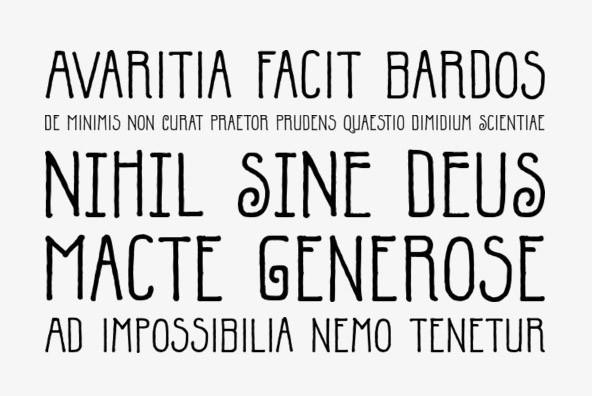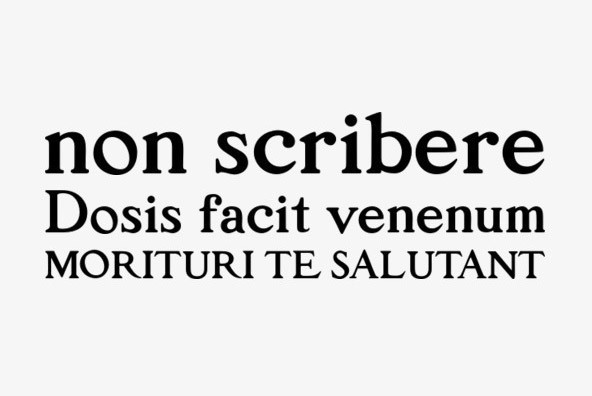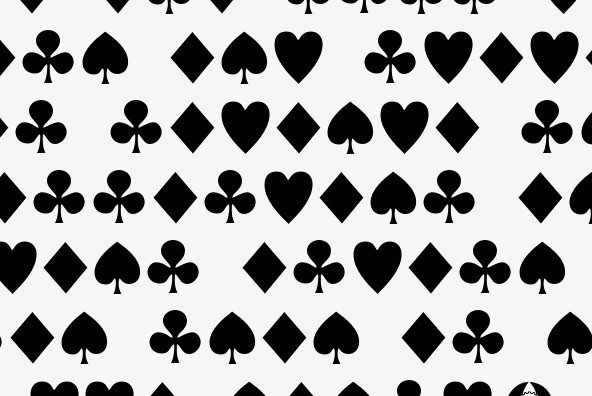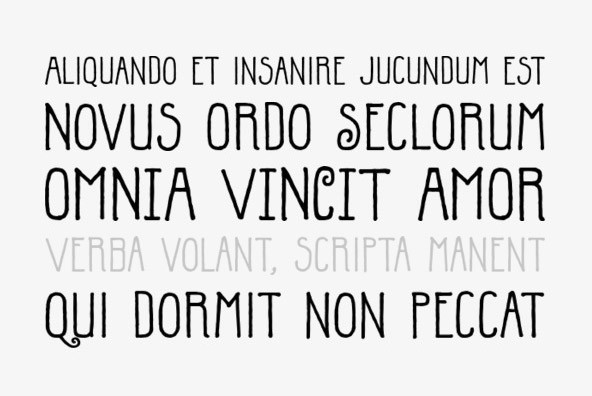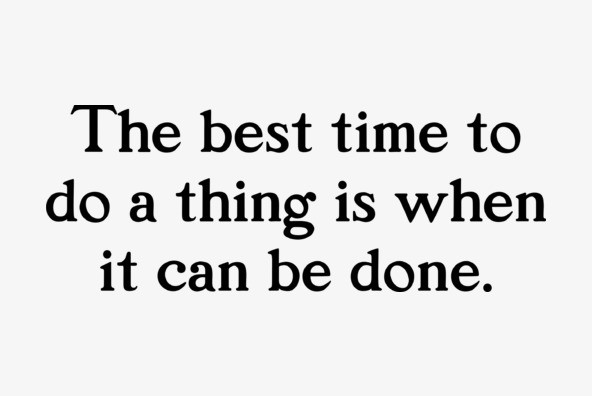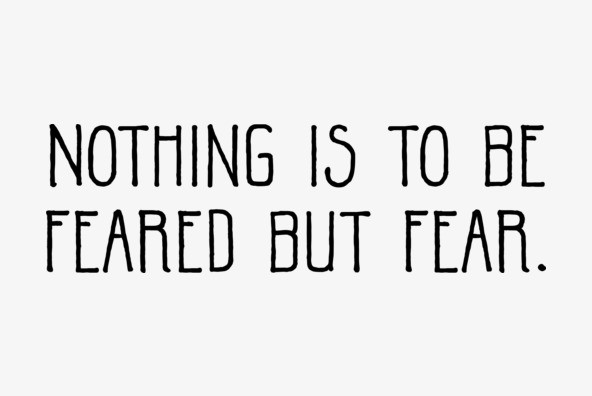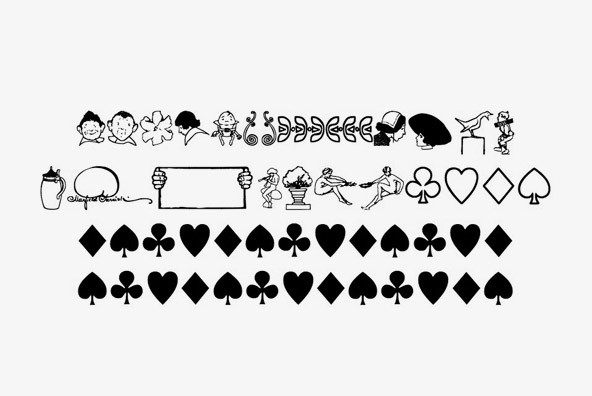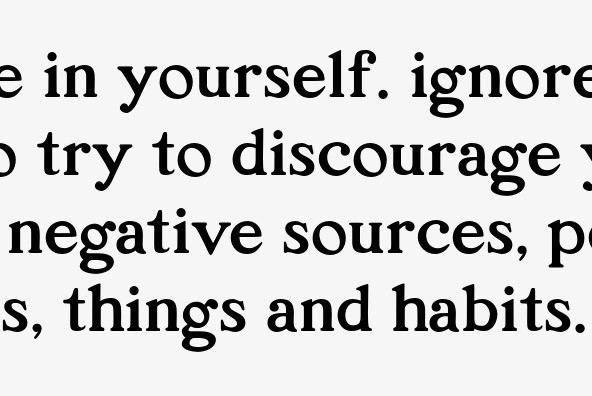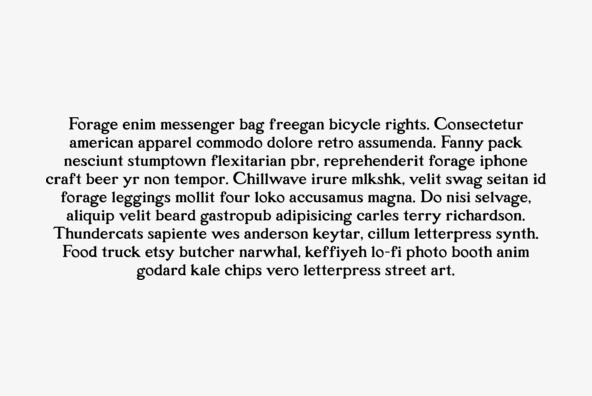
P22 Parrish Set
Maxfield Parrish (1870-1966), whose career spanned nearly ninety years, holds a unique place in American art and culture. He was enormously accomplished and successful in both fine art and commercial endeavors. Parrish's hand-drawn letters were a significant part of his works, which bridged the familiar with a startling otherworldliness. P22 has created the Parrish font set in cooperation with the National Museum of American Illustration.